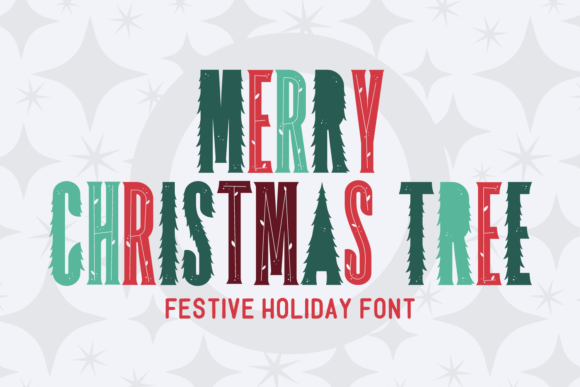
Merry Christmas Tree
Finding the right design elements can be challenging, but Merry Christmas Tree offers an exceptional collection that elevates your work instantly.
Whether you are creating POD (Print on Demand) products, wedding invitations, or social media graphics, Merry Christmas Tree is an ideal fit.